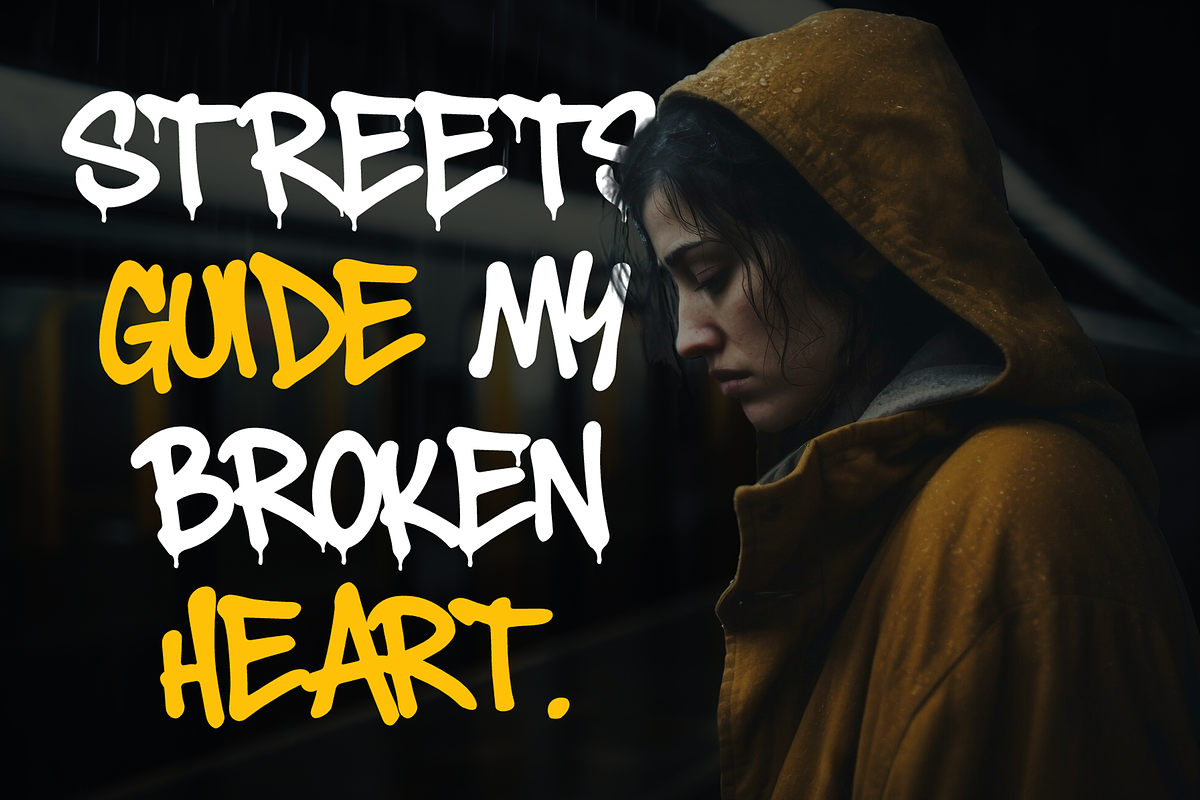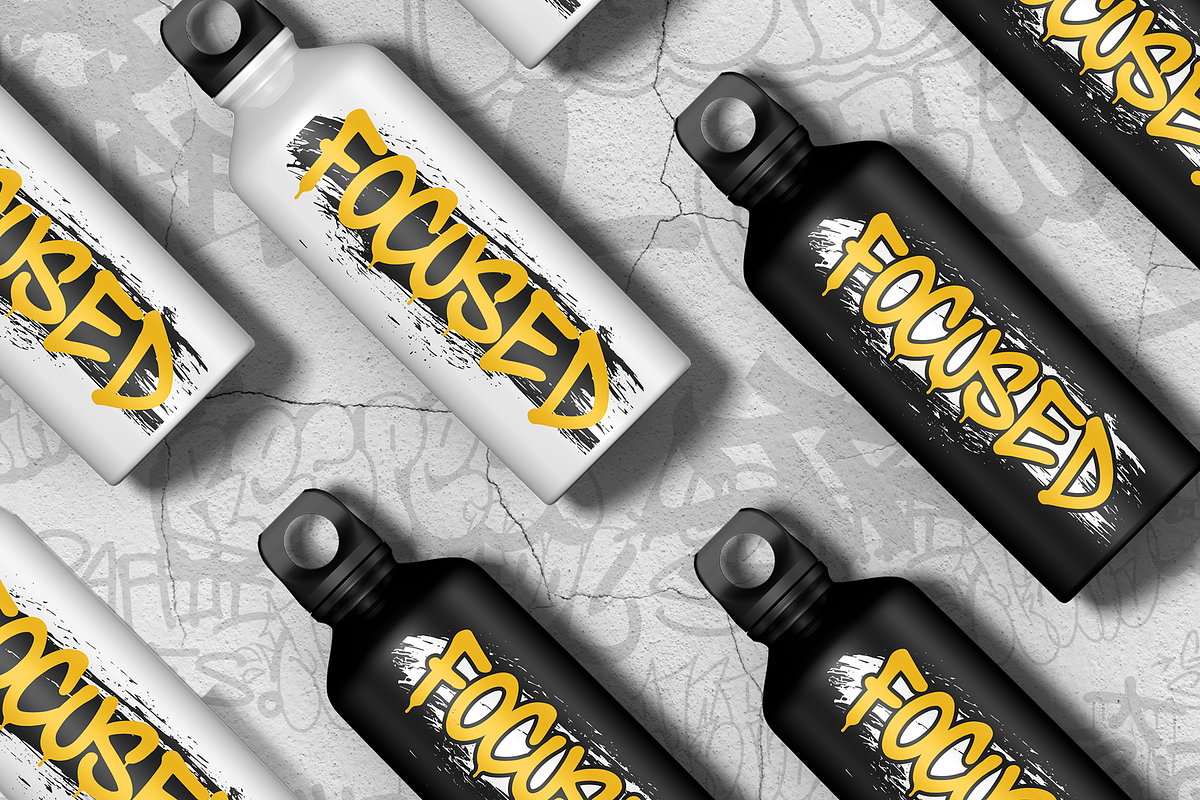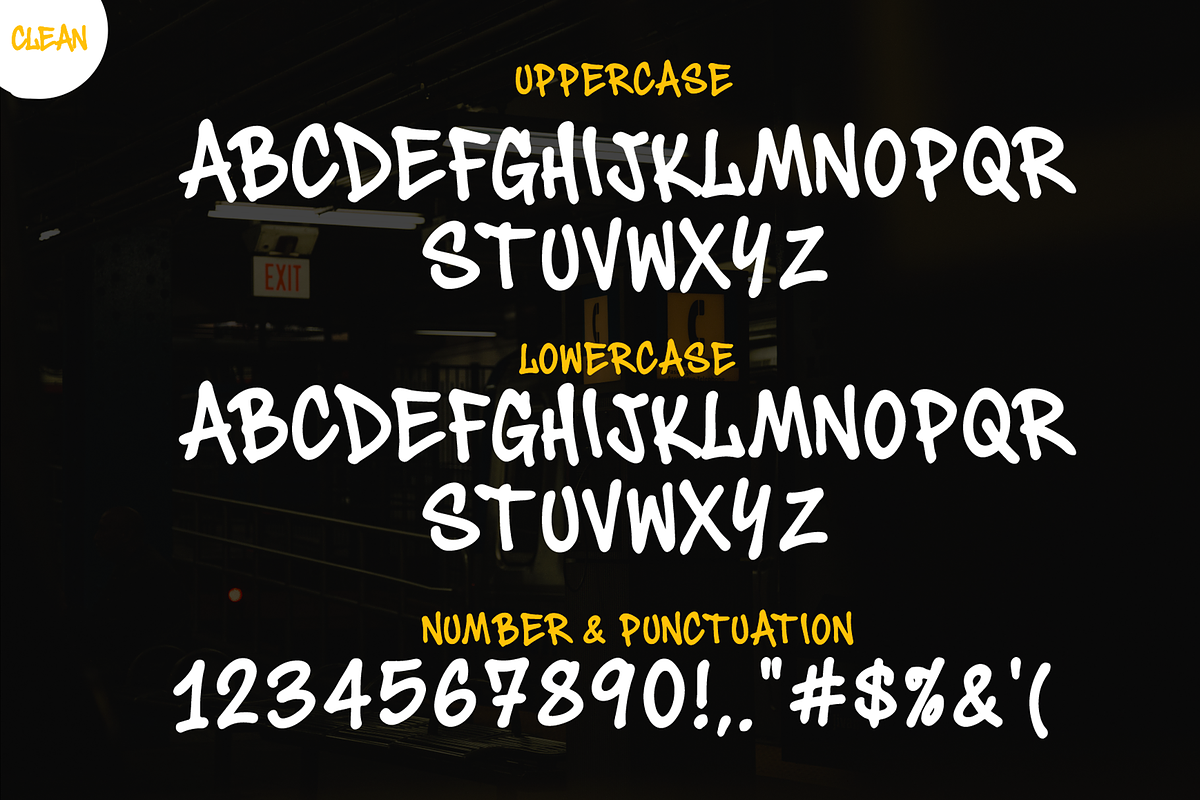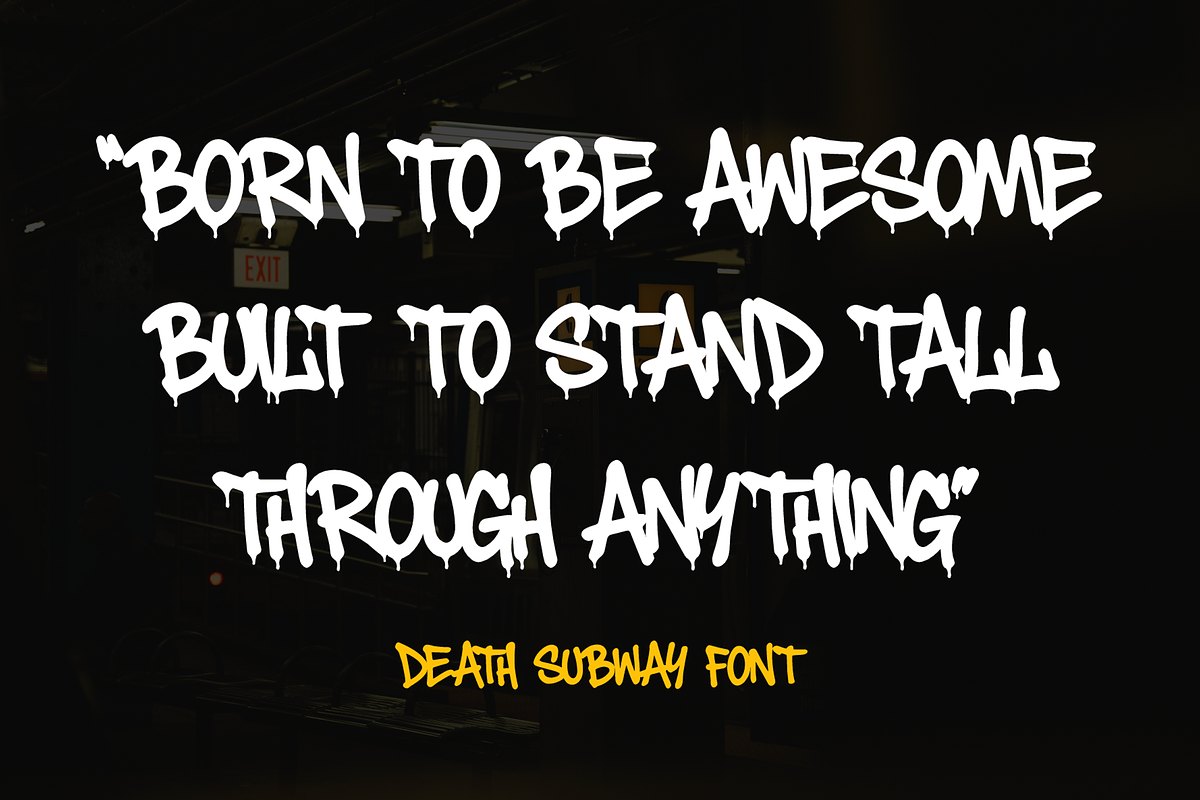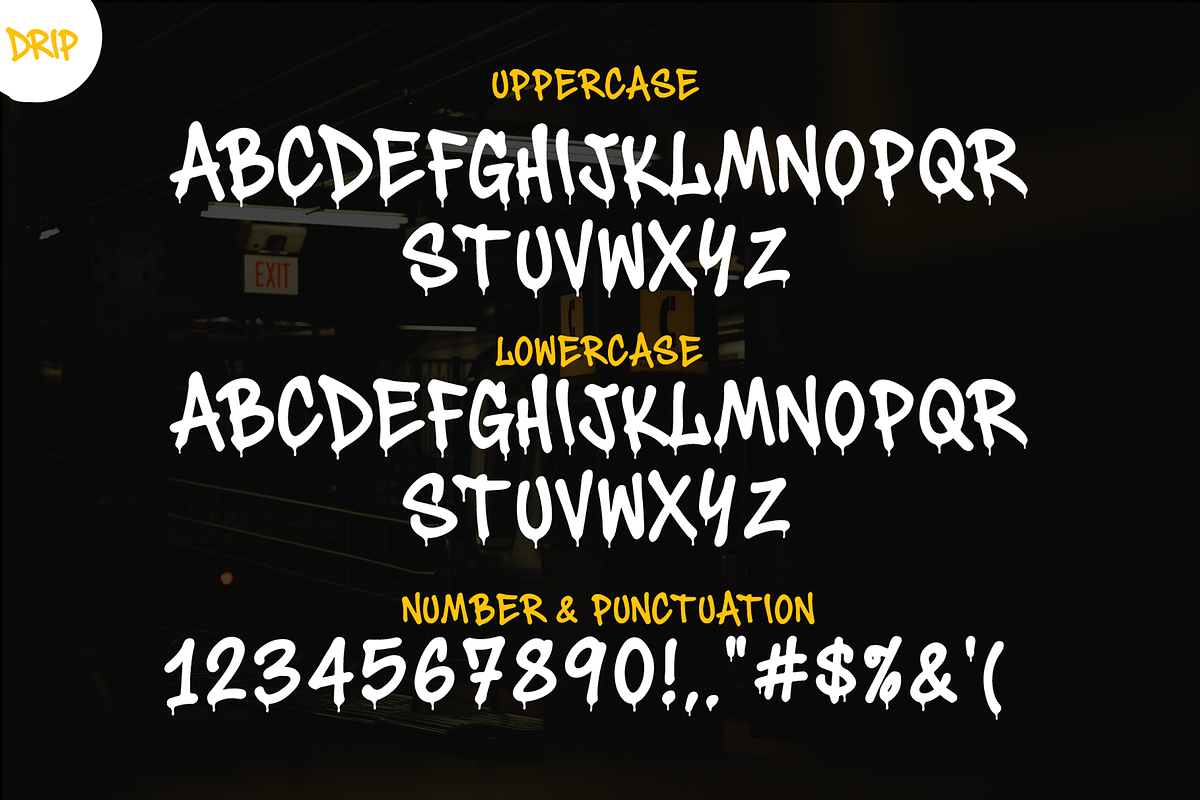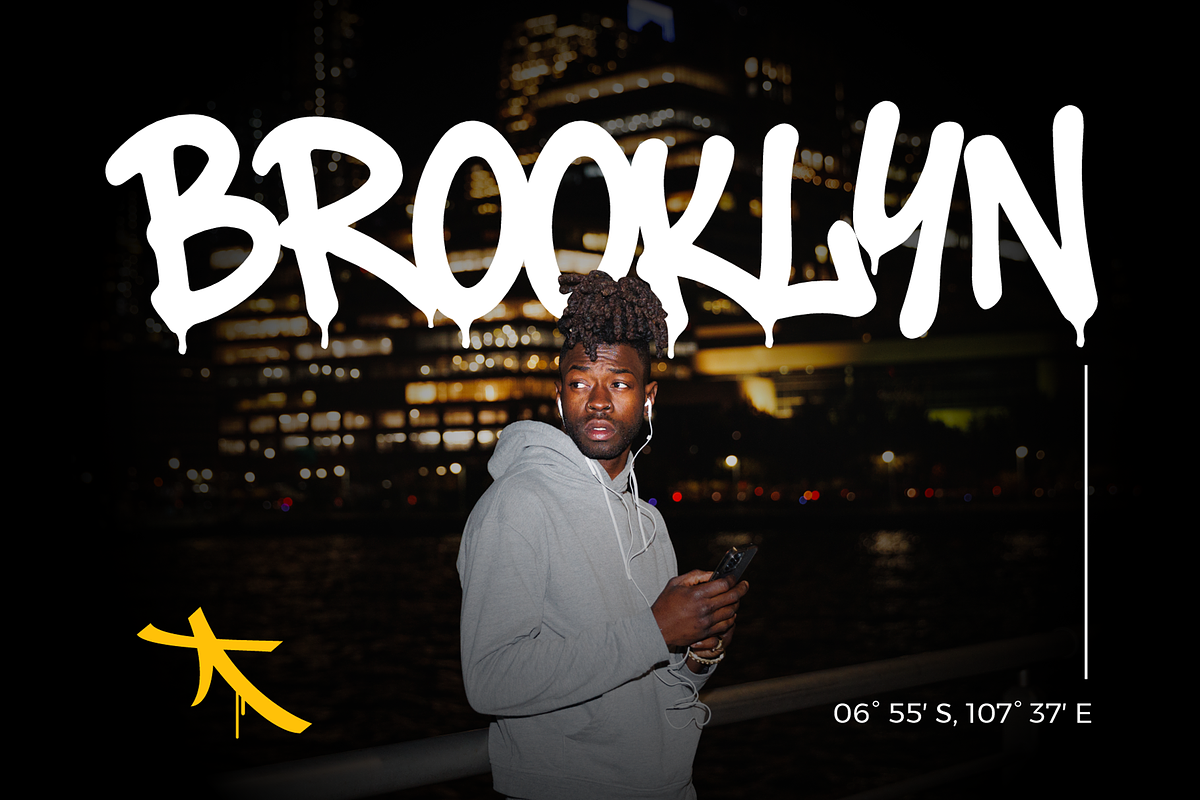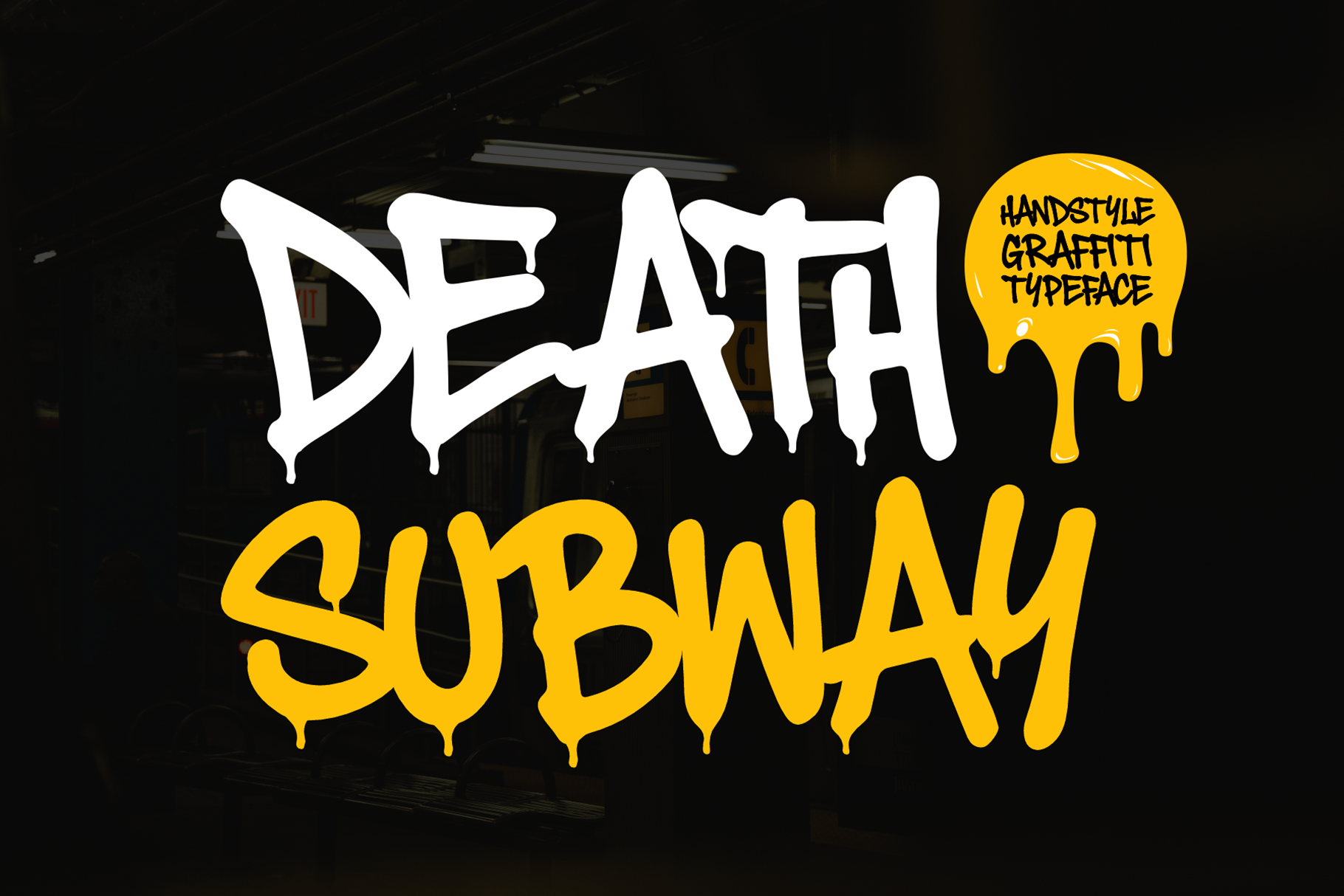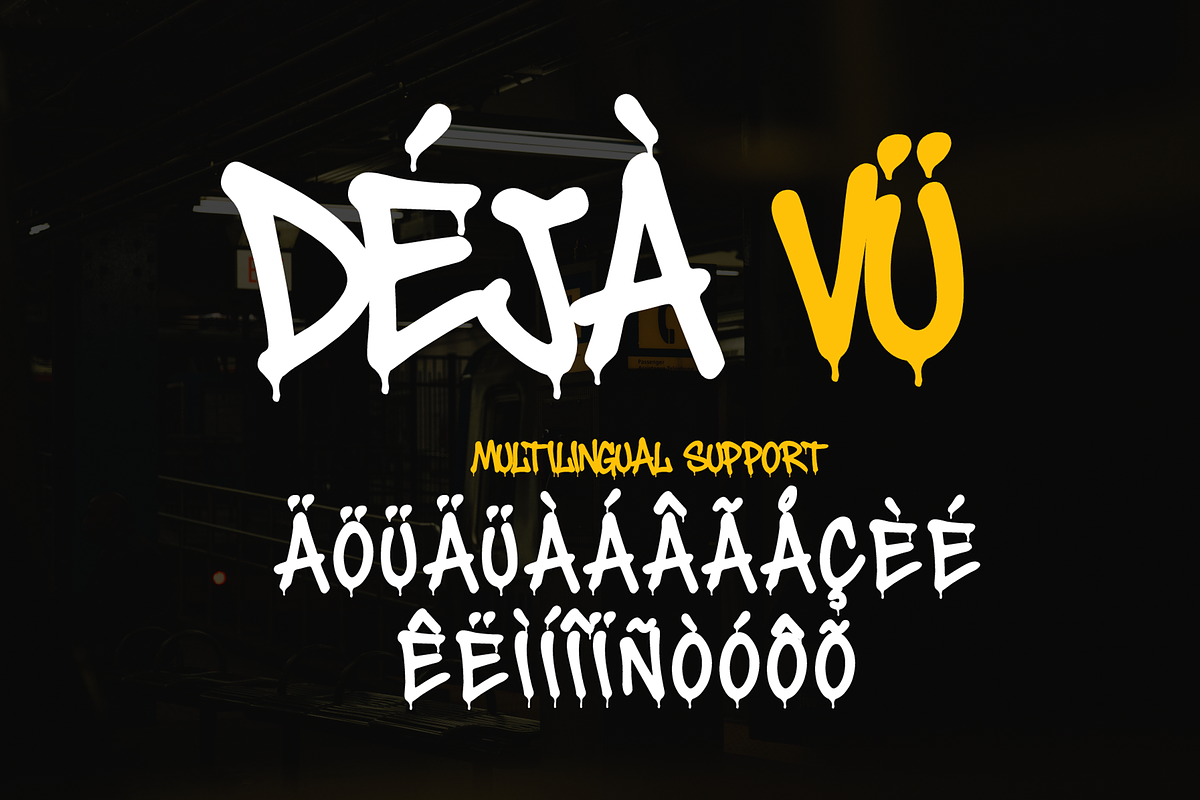
Death Subway – Graffiti Font
Bring raw energy and spooky edge to your designs with Death Subway – Handstyle Graffiti Font. Inspired by classic hand-painted tags and urban street lettering, this font captures the essence of bold strokes, uneven drips, and authentic marker texture. It’s crafted for designers who want their text to look alive, wild, and full of motion.
The Death Subway font is perfect for Halloween posters, horror movie titles, haunted event flyers, creepy invitations, and any design that needs a mix of rebellion and terror. Every letter drips with attitude — from quick graffiti lines to the signature horror-inspired flow that gives it an eerie, chaotic soul.
With two complete styles — Regular and Drip — you can easily switch between clean handstyle energy and full dripping horror aesthetics. Each version is designed for maximum legibility while preserving the spontaneous spirit of real graffiti art.
- All Caps for strong, loud, and impactful typography.
- Support Multilingual – ready for global audiences.
- Two Unique Styles – Regular and Drip for flexible creativity.
- Handstyle Graffiti Look – authentic spray-paint vibe with realistic ink flow.
- Perfect for Horror Projects – Halloween posters, scary quotes, or haunted visuals.
- High Contrast Strokes – balanced rhythm that enhances readability.
Why Designers Love It Designers love Death Subway because it delivers both personality and power. Its expressive strokes give life to static text, making it ideal for event posters, social media visuals, or any artwork that demands attention. The Drip version adds extra intensity — perfect for dark themes, eerie headlines, and seasonal campaigns.
Another reason it stands out is its versatility. Even with its rough style, it maintains strong clarity. You can layer it with textures, blend it with color gradients, or leave it stark black and white for dramatic effect. With multilingual support and consistent weight, Death Subway fits smoothly into both print and digital projects.
Final Words If you’re looking for a handstyle graffiti font that screams horror and attitude, Death Subway is the one. Its dripping letters and bold strokes bring instant energy to any spooky theme. From Halloween posters to chilling video titles, this font transforms ordinary text into haunting visual art. Add Death Subway to your collection and let your typography break all the rules — loud, raw, and unforgettable.